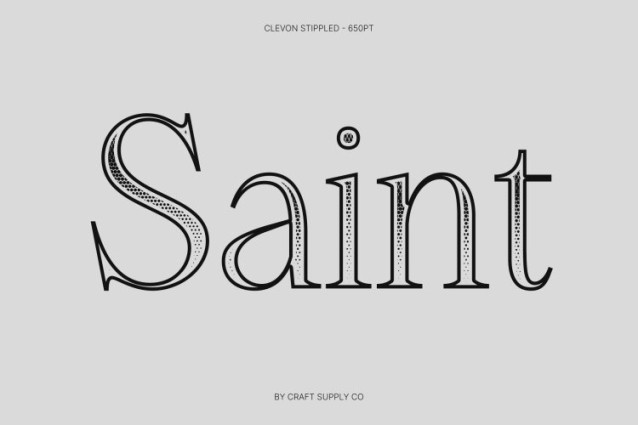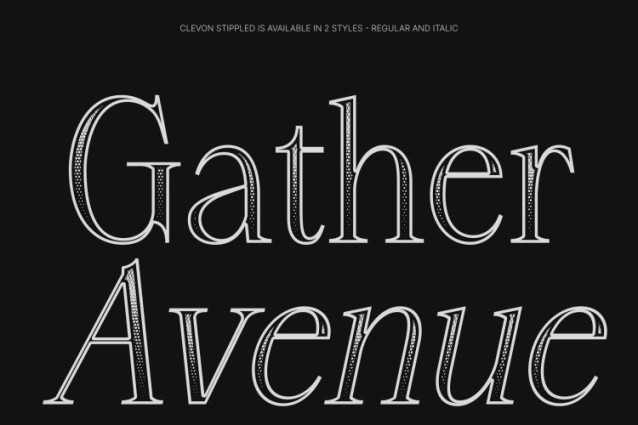
Clevon Stippled Font
Clevon Stippled Font This is a striking serif font defined by authentic letterforms and confident high contrast, now enhanced with a dense stippled texture. Inspired by classic ink-dot and stippling illustration techniques, the dotwork surface adds depth and visual richness, giving the font a handcrafted, artistic presence while remaining highly readable for both display and body text use.
Bold Presence with Timeless, Textured Appeal
With its strong structure and bold typographic voice, commands attention across any medium. The stippled detailing softens the contrast and introduces a timeless, classic impression evoking vintage print aesthetics while maintaining clarity and authority in modern layouts.
Versatile for Editorial, Branding, and Display Use
This font adapts effortlessly to a wide range of applications, from impactful headlines and posters to editorial spreads, websites, and refined branding systems. Its balanced proportions ensure smooth transitions between large-scale display use and comfortable reading sizes, while the dotwork texture adds distinctive character without overwhelming the content.
A Refined Blend of Tradition and Modernity
Rooted in traditional serif principles yet shaped with contemporary sensibility, strikes a perfect balance between classic elegance and modern design trends. The stippled treatment enhances its expressive quality, delivering a vintage, hand-drawn feel that elevates designs with authenticity, artistry, and lasting appeal.